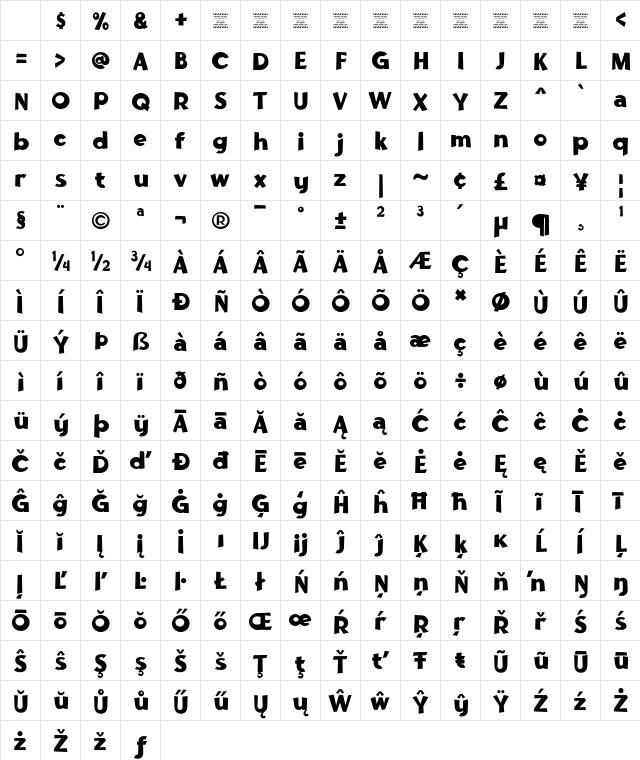
Complete Tufuli Arabic DEMO Bold glyph index. Displaying only characters natively supported by Tufuli Arabic DEMO Bold font.
Tufuli Arabic DEMO is a composed and adaptable typeface that performs quietly and consistently across a wide range of design contexts. Its bold stroke weight gives it real presence on the page.